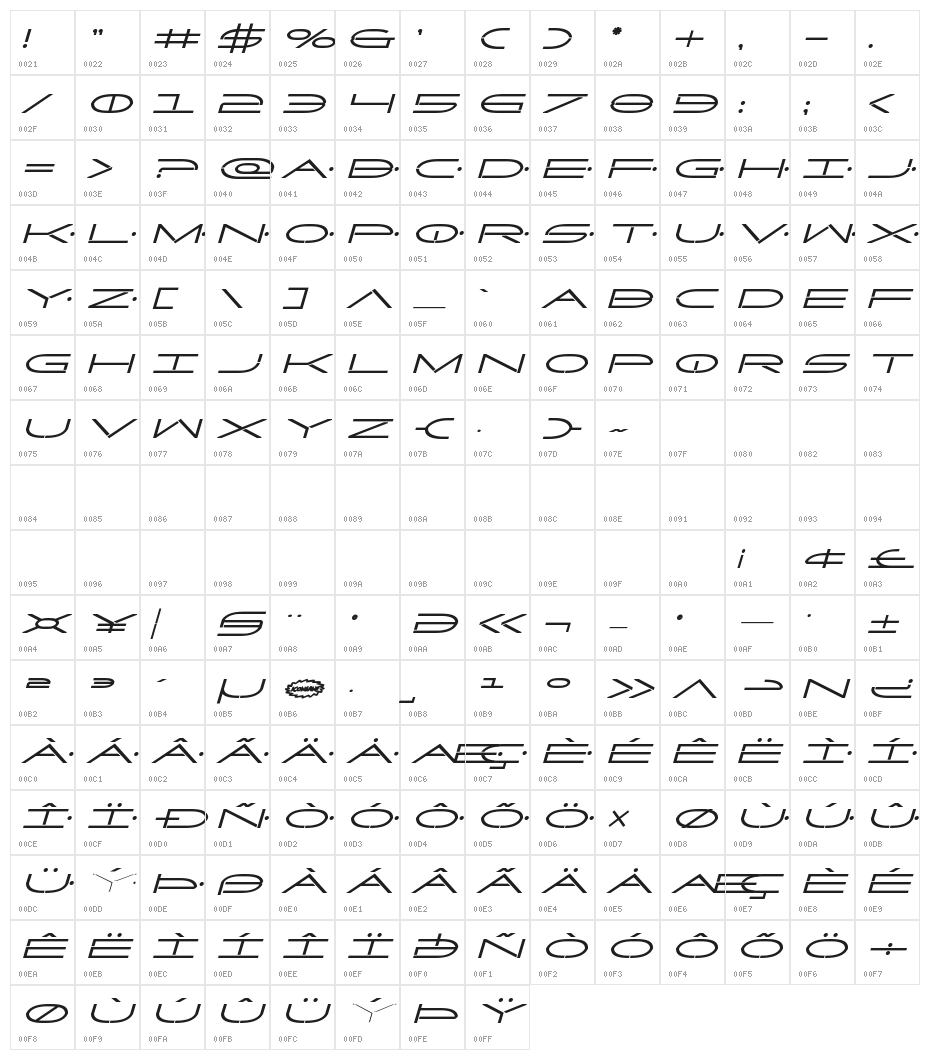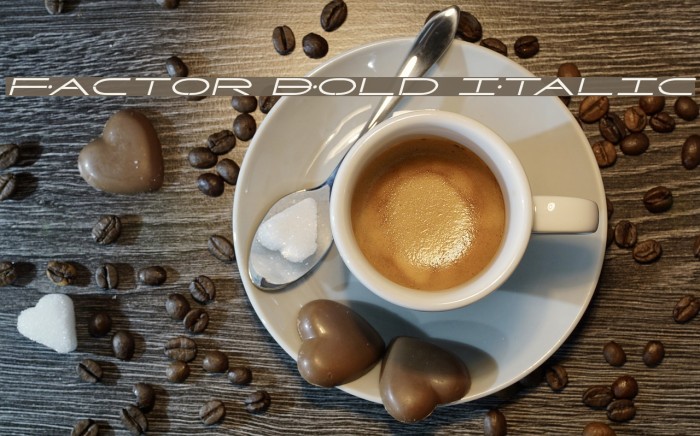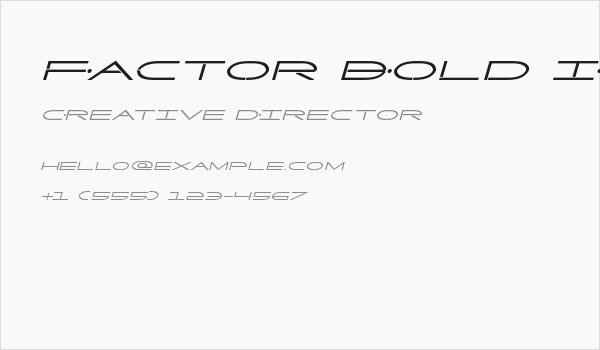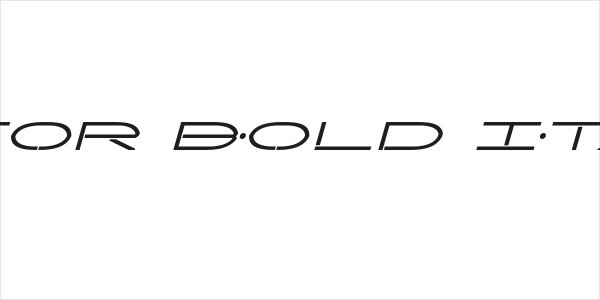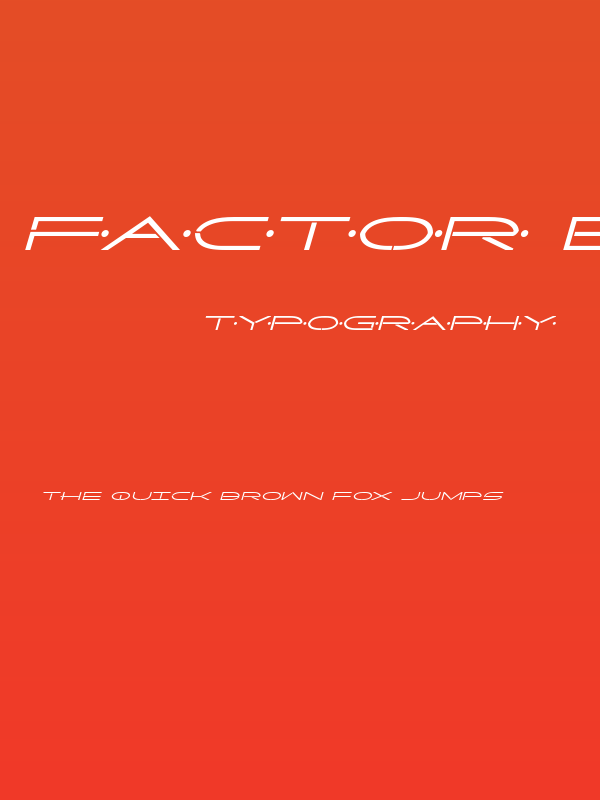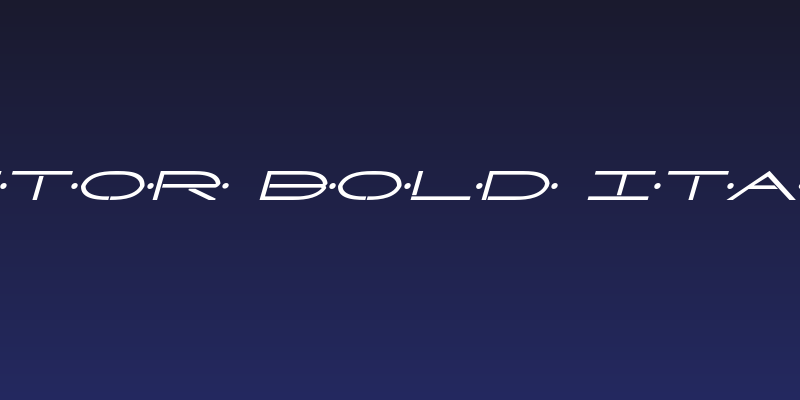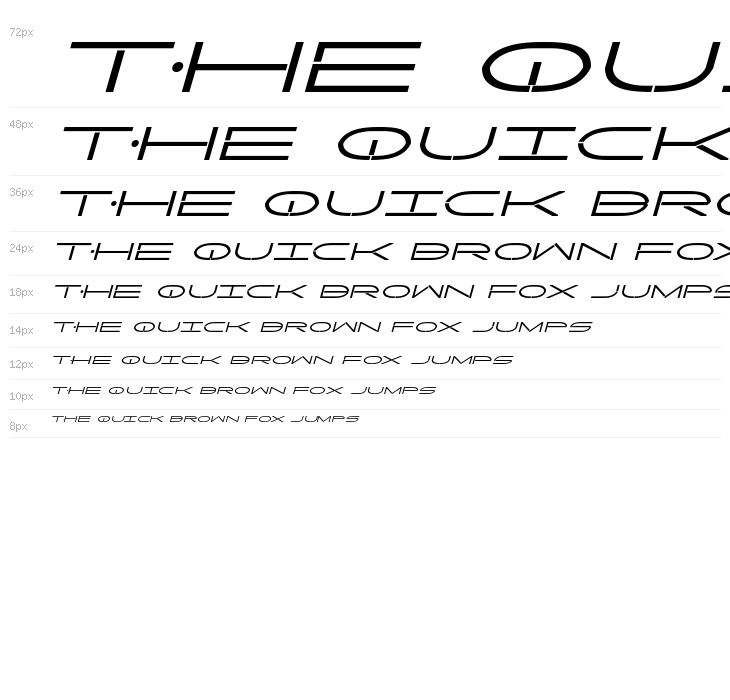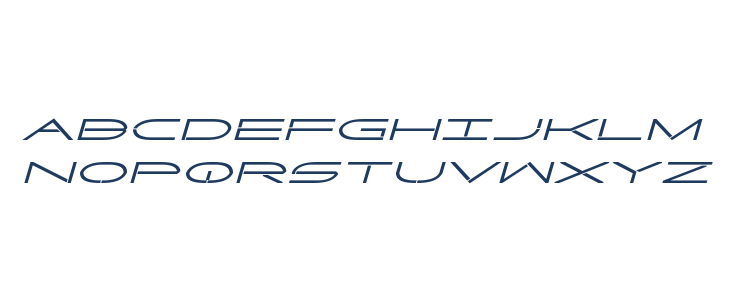
Factor Bold Italic Font
Factor Bold Italic Description
This font features a futuristic and sleek design with a distinct geometric style. The characters are elongated and slightly italicized, giving a sense of motion and modernity. Each letter is crafted with precision, incorporating unique cutouts and angles that add to its dynamic appearance. The font maintains a consistent stroke width, contributing to a clean and uniform look. Its bold nature enhances visibility and impact, making it suitable for attention-grabbing headlines or branding elements. The numerals and special characters follow the same design principles, ensuring a cohesive visual identity across all text elements.
| Proposed Projects | Ideal for technology branding, sci-fi themed projects, modern advertising, and innovative product packaging. |